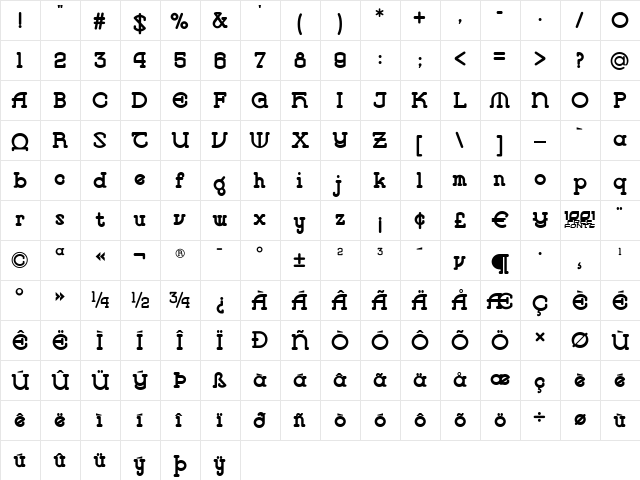
Vlaanderen Round NF Regular
Design Context for Vlaanderen Round NF Typeface
Vlaanderen Round NF softens its letterforms with rounded terminals, giving it an approachable, friendly quality that works well in consumer-facing and digital contexts.
Well-suited to UI design, mobile interfaces, and any brand that wants approachability without sacrificing clarity.
Font Pairing: Pairs well with a rounded or humanist sans for body copy, maintaining the friendly tone without relying on Vlaanderen Round NF to carry extended reading.
Pro Tip: Use Vlaanderen Round NF for UI elements, app interfaces, and anywhere a friendly, approachable tone needs to be maintained without sacrificing clarity.